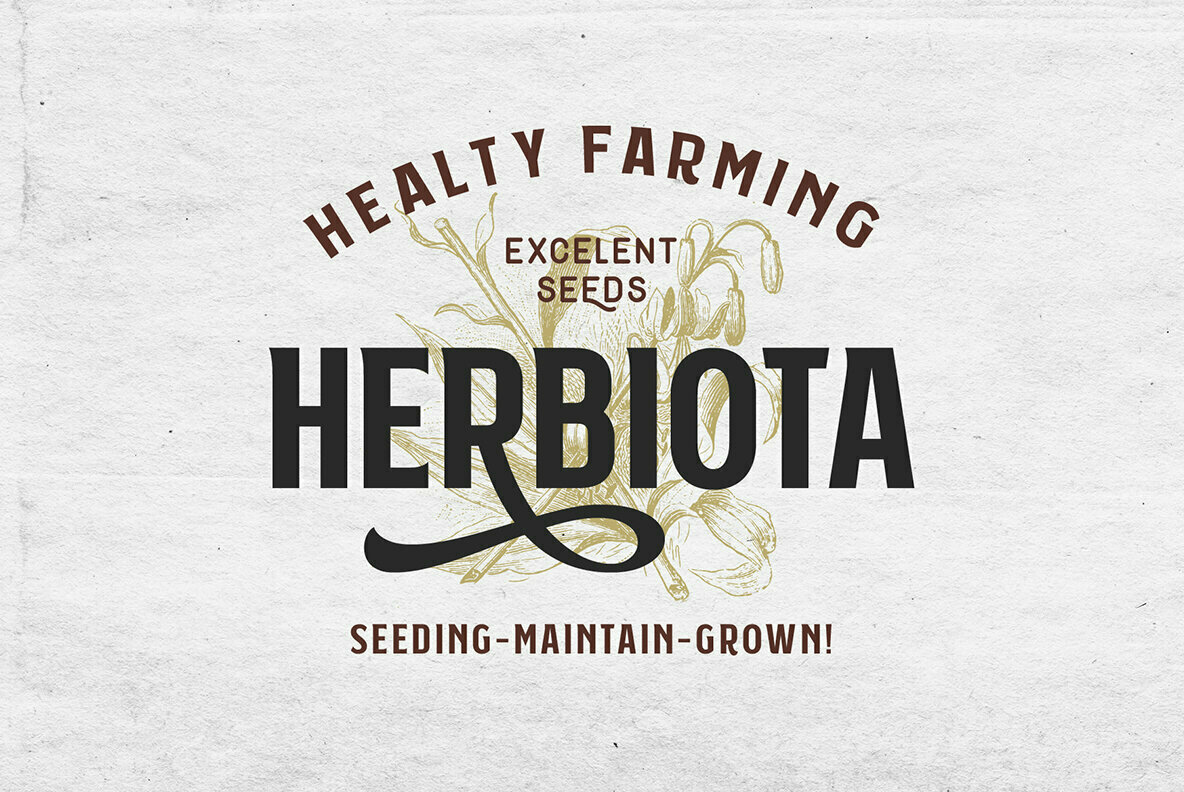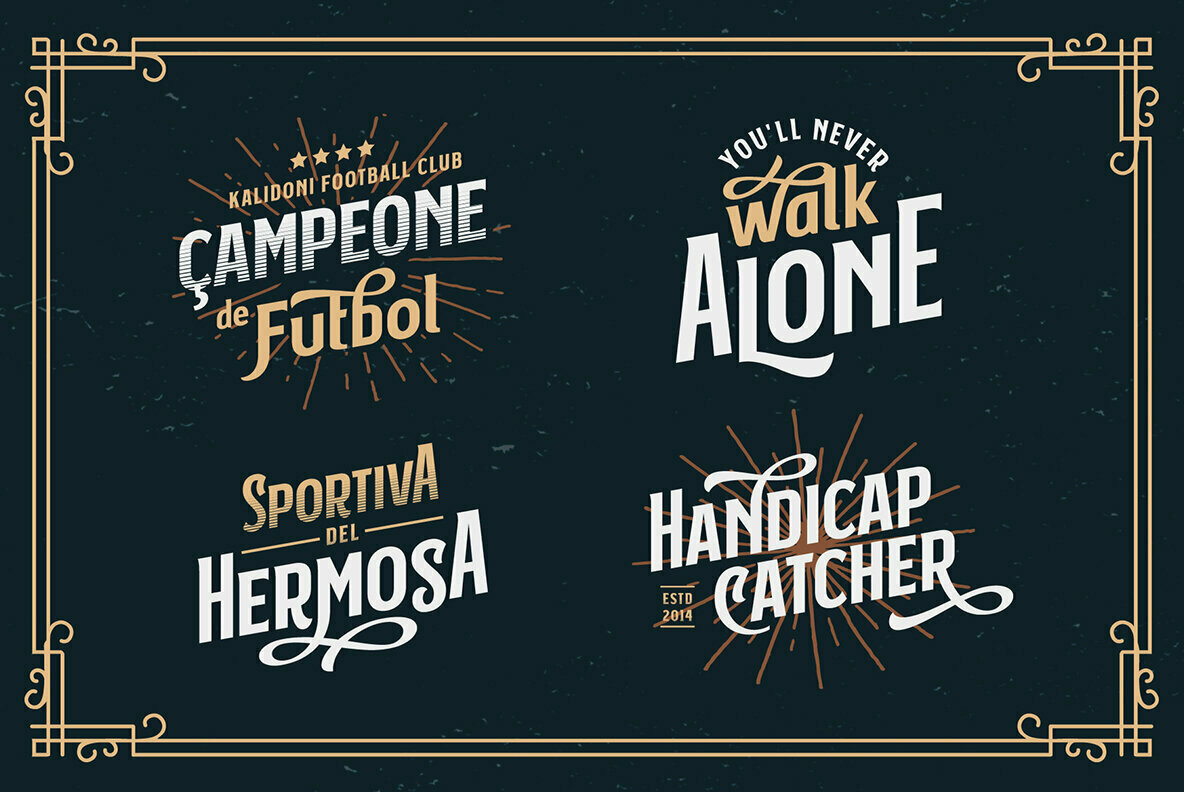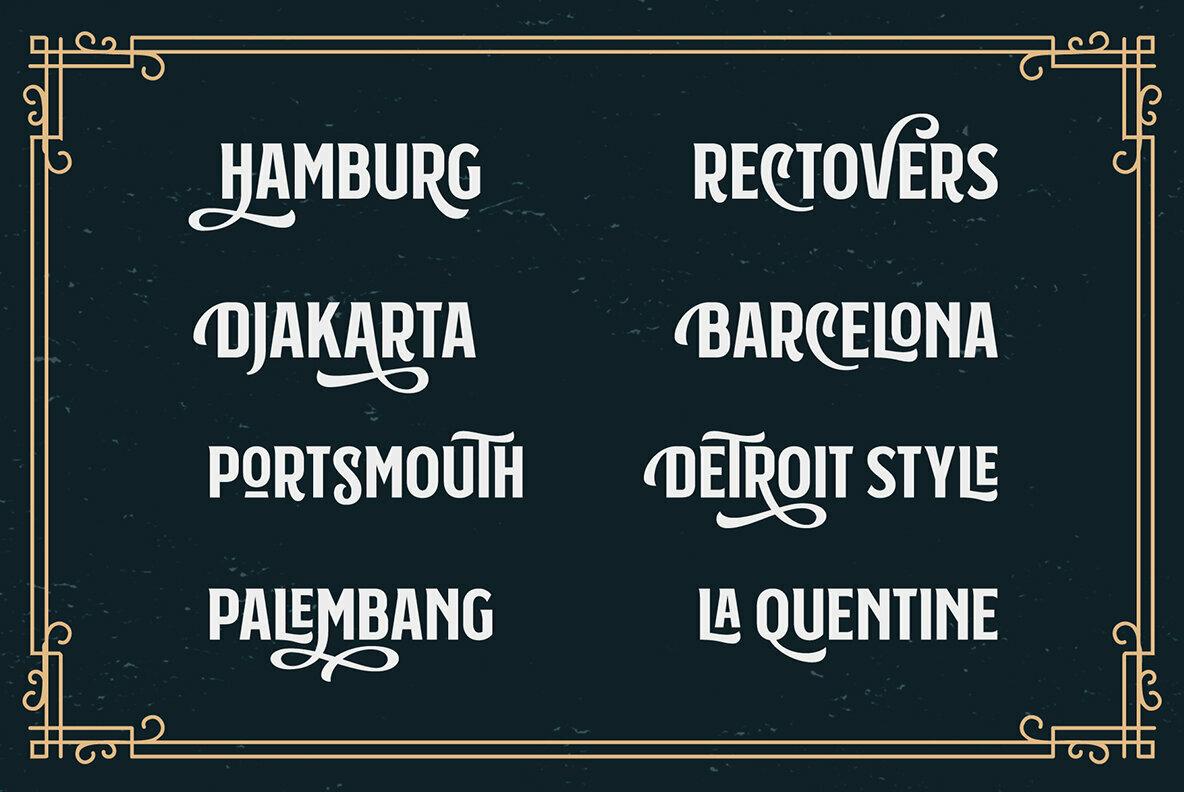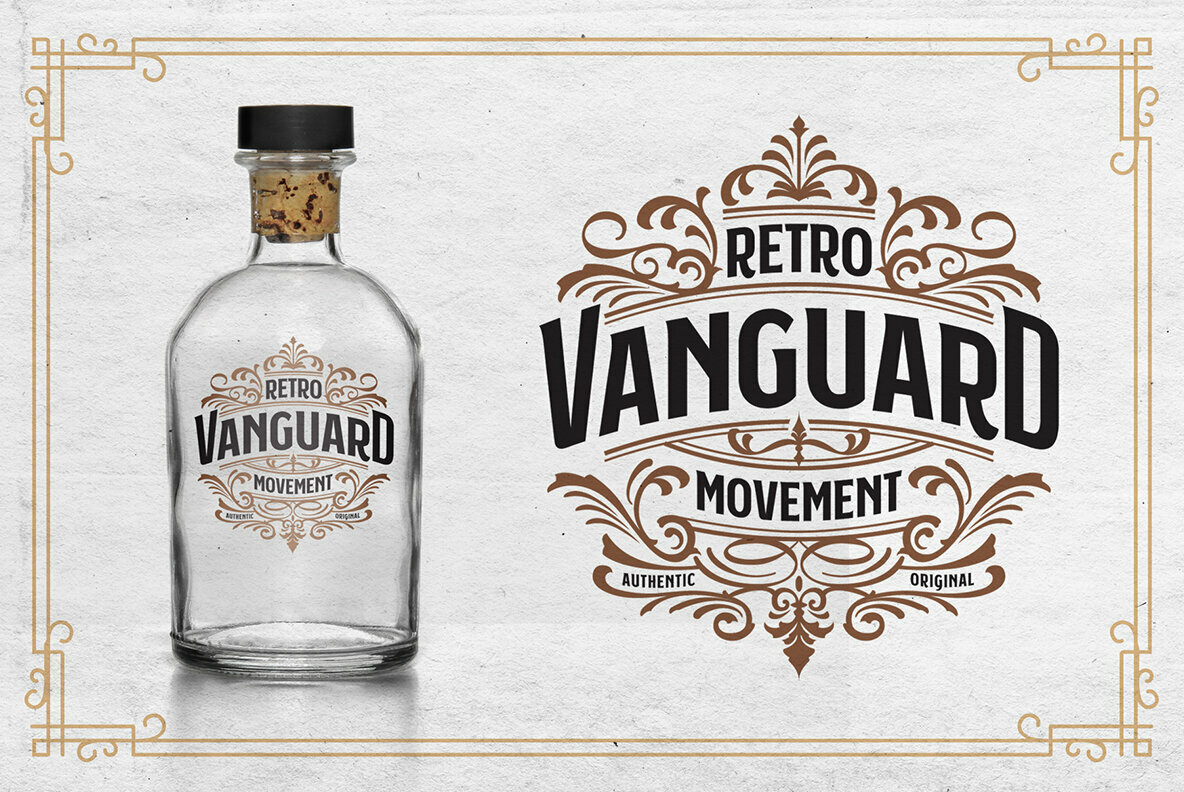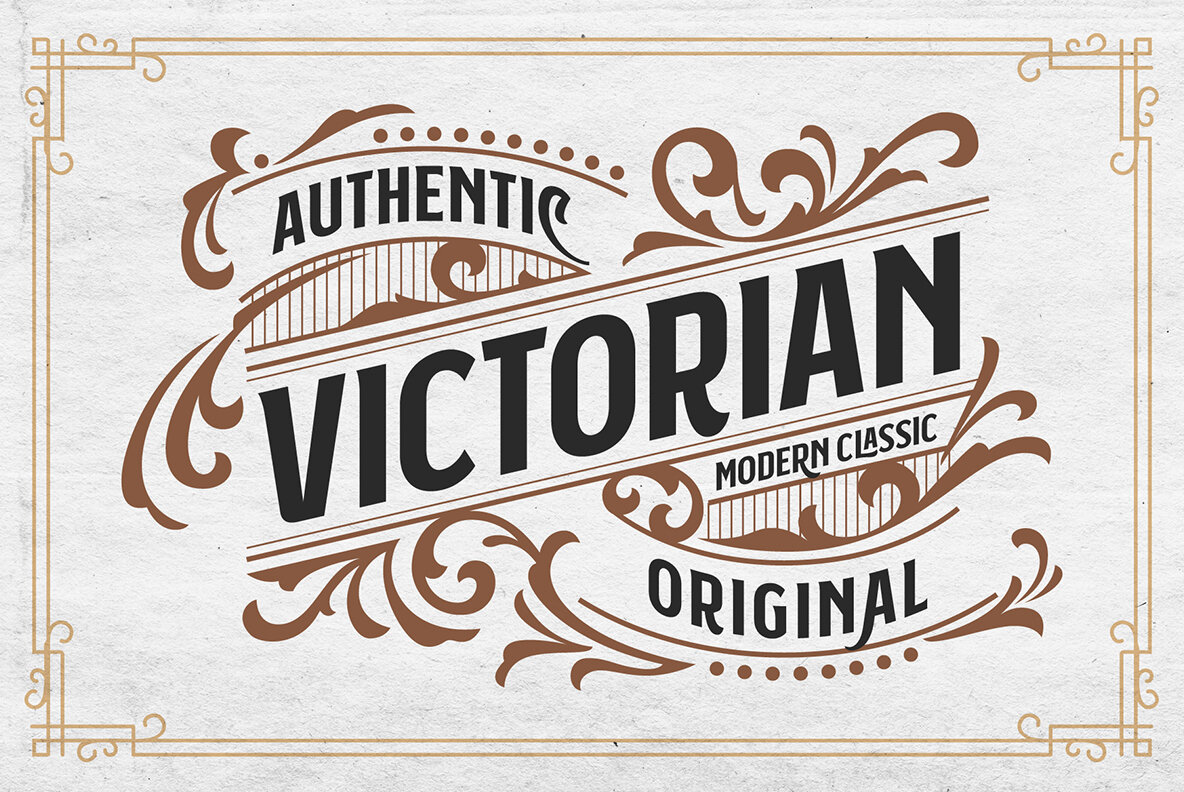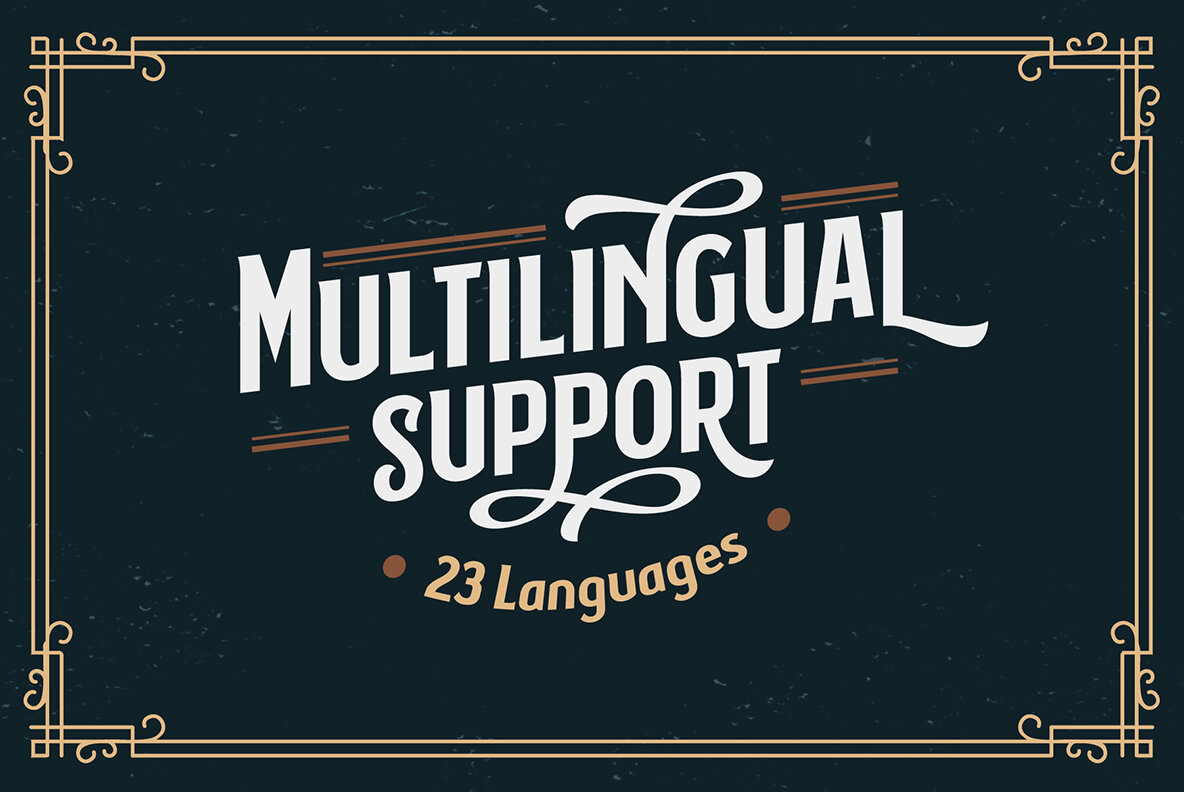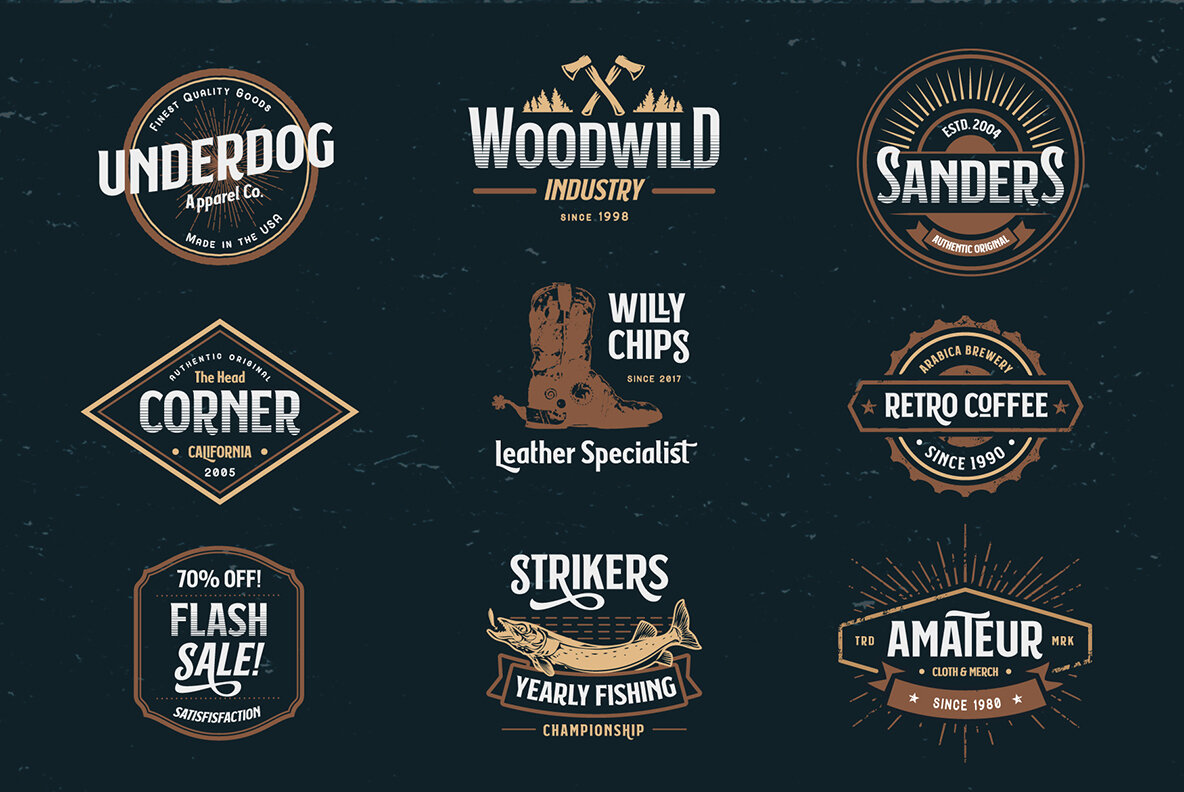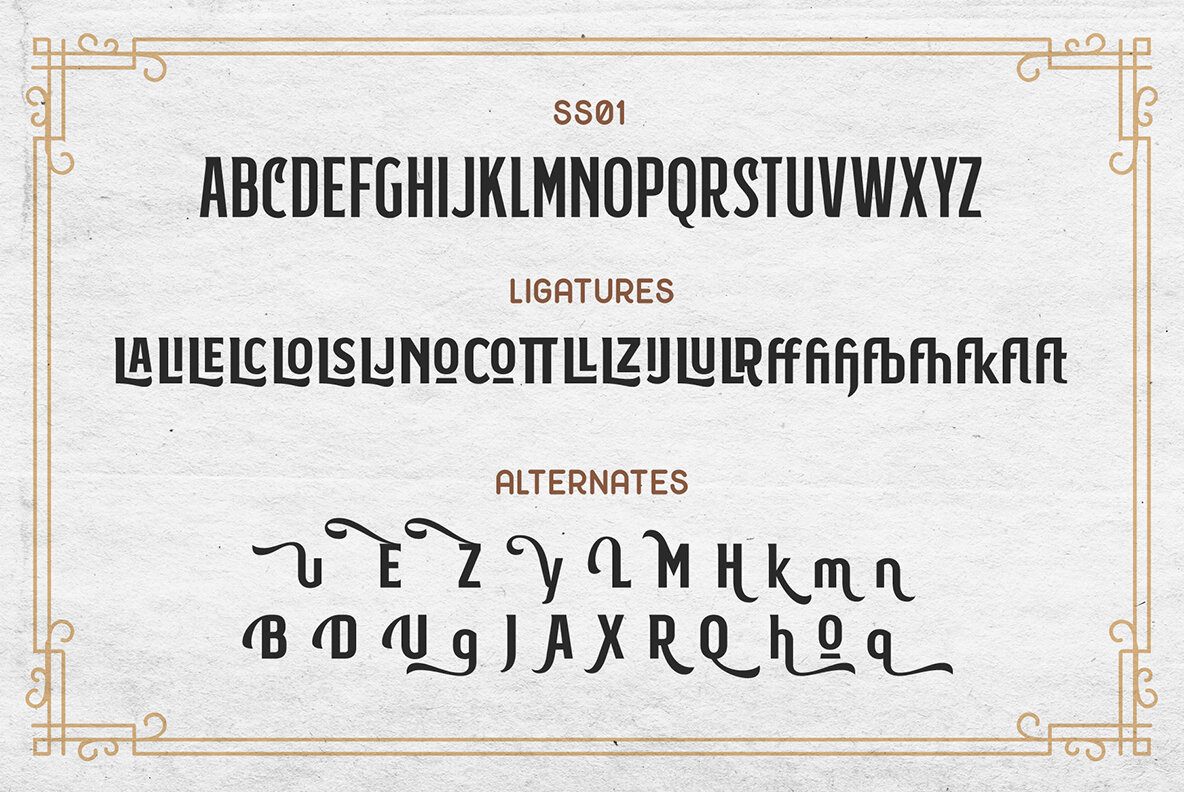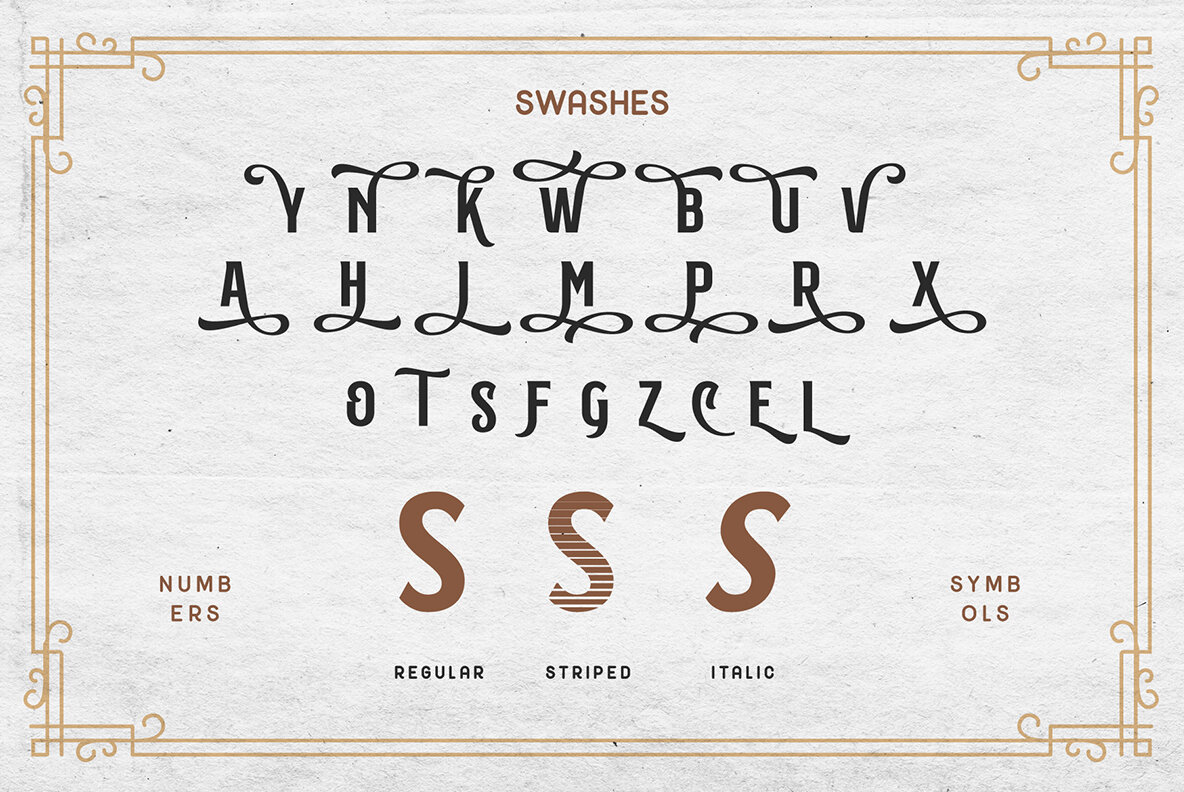
Subversia Font
Subversia strikes a compelling balance between Victorian sophistication and contemporary sport-inspired design. Its refined, solid forms lend a fresh, modern flair to a broad array of design endeavors, from posters and flyers to logos and magazine layouts. Explore its full potential using programs that support open-type features such as Photoshop, Illustrator, InDesign, or CorelDraw X6. Alternatively, access its enhanced characters through Font Book on Mac or Character Map on Windows for seamless integration into your creative projects.Subversia: Where Victorian Elegance Meets Modern Versatility